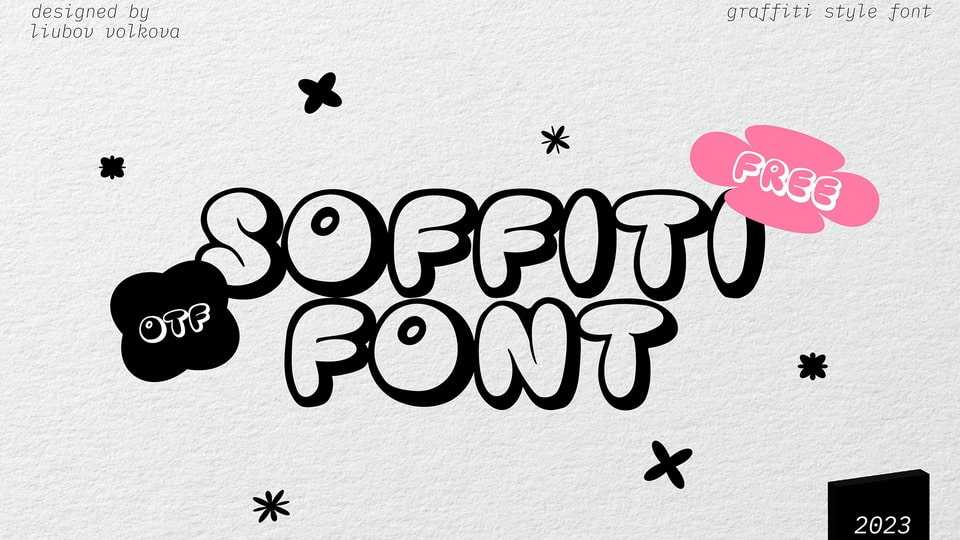
Download Soffiti font, a bubble graffiti style font inspired by the street graffiti in Sofia, Bulgaria. Soffiti font embodies playfulness and authenticity and is the perfect choice for branding, posters, album artwork, apparel and any project that needs to capture attention.